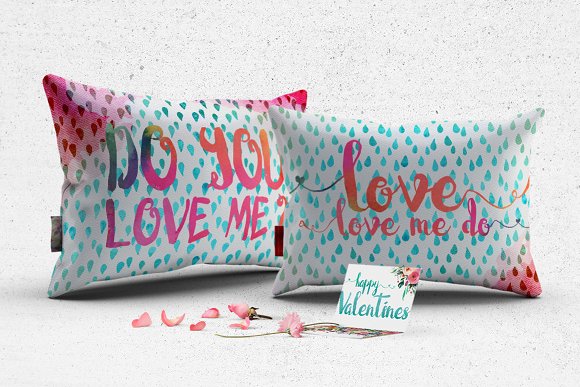
Introducing Blushingly Font: A Handcrafted Beauty by Creativeqube
Are you tired of using the same old fonts in your designs? Do you want to add a touch of elegance and sophistication to your projects? Look no further than Blushingly Font, a stunning handcrafted font created by Creativeqube. In this article, we’ll dive into the details of this beautiful font and explore its features, benefits, and uses.
What is Blushingly Font?
Blushingly Font is a meticulously crafted font designed to bring a touch of warmth and personality to your designs. Created by Creativeqube, a renowned design studio, this font is perfect for crafters, designers, and anyone looking to add a unique flair to their projects. With its elegant and refined aesthetic, Blushingly Font is sure to impress.
Features of Blushingly Font
• Handcrafted with love: Each letter has been carefully crafted to ensure a unique and personal touch.
• Elegant and refined: Blushingly Font features a sophisticated design that’s perfect for high-end projects.
• High-quality: This font is designed to deliver crisp and clear results, even at small sizes.
• Versatile: Use Blushingly Font for a wide range of projects, from branding and packaging to wedding invitations and more.
Benefits of Using Blushingly Font
So, why choose Blushingly Font for your next project? Here are just a few benefits of using this beautiful font:
• Add a personal touch: With its handcrafted design, Blushingly Font adds a unique and personal touch to your projects.
• Stand out from the crowd: This font’s elegant and refined aesthetic ensures your designs will stand out from the competition.
Uses for Blushingly Font
Blushingly Font is an incredibly versatile font that can be used for a wide range of projects, including:
• Branding and packaging: Add a touch of elegance to your brand’s identity with Blushingly Font.
• Wedding invitations and stationery: This font’s romantic and refined aesthetic makes it perfect for wedding designs.
• Signage and displays: Use Blushingly Font to create eye-catching signs and displays that showcase your brand’s personality.
• Digital and print media: This font works beautifully in both digital and print applications, from social media graphics to brochures and flyers.
How to Use Blushingly Font
• Experiment with different sizes: Blushingly Font looks great at a range of sizes, from small and delicate to large and bold.
• Play with colors: This font works beautifully with a range of colors, from soft pastels to rich jewel tones.
• Mix and match: Combine Blushingly Font with other fonts to create unique and eye-catching designs.
Font Name Blushingly Font
Author Creativeqube Design